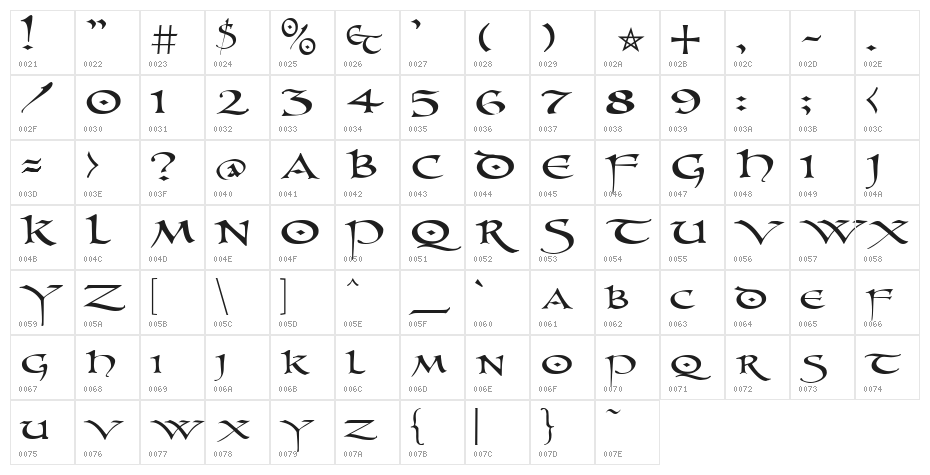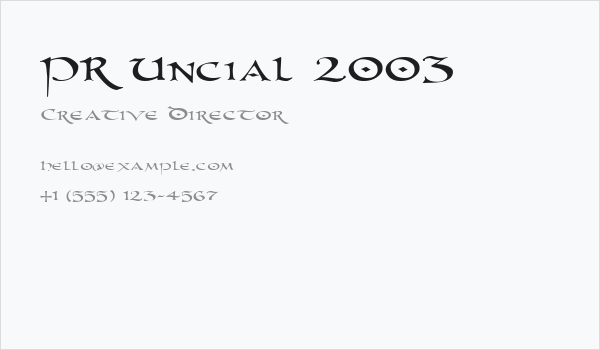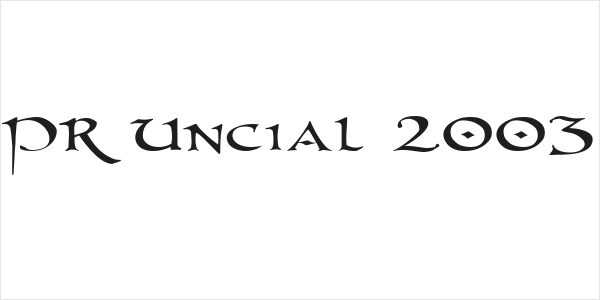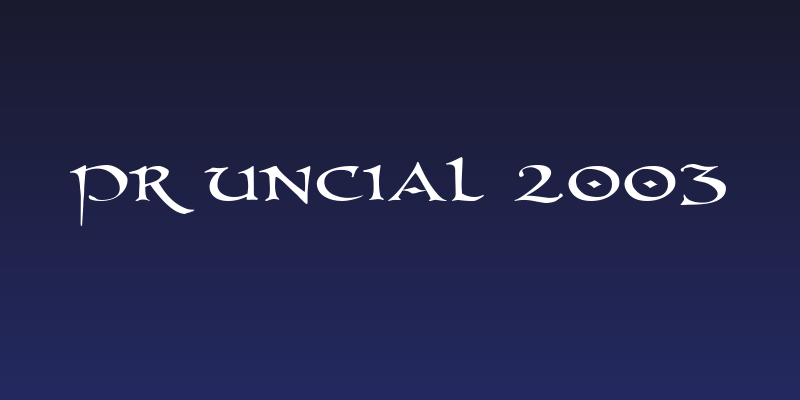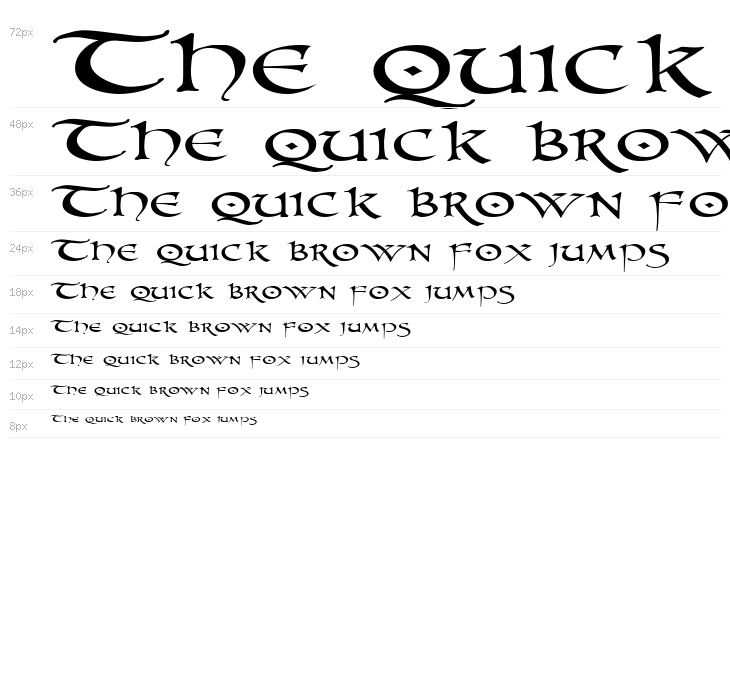
PR Uncial 2003 Font
PR Uncial 2003 Description
This font exudes a medieval and historical charm, reminiscent of ancient manuscripts and traditional calligraphy. The characters are crafted with a distinct flair, featuring sharp, angular strokes and unique embellishments that give each letter a sense of individuality. The uppercase letters are particularly striking, with ornate details that enhance their visual appeal. The lowercase letters maintain a consistent style, offering a harmonious balance with the uppercase set. Numbers and special characters are designed with the same attention to detail, ensuring a cohesive look across all elements. This font's intricate design makes it ideal for projects that require a touch of elegance and historical authenticity.
| Proposed Projects | Ideal for historical documents, fantasy-themed designs, book covers, and decorative invitations. |